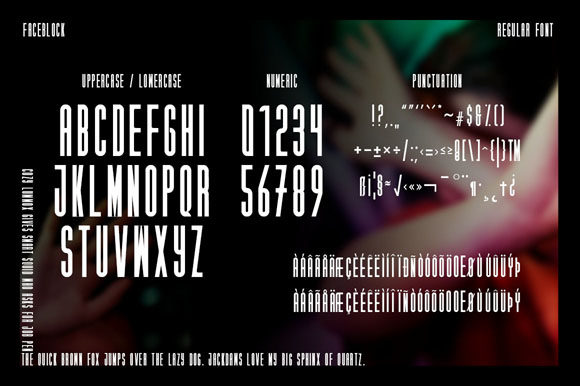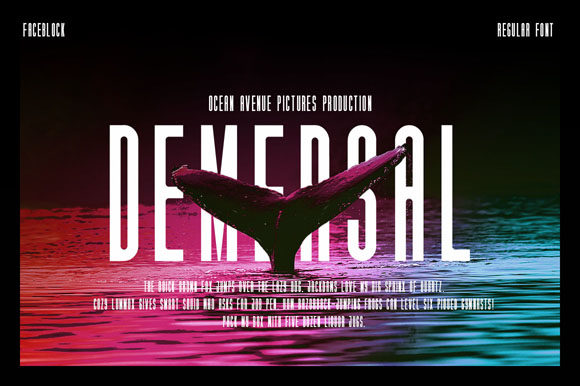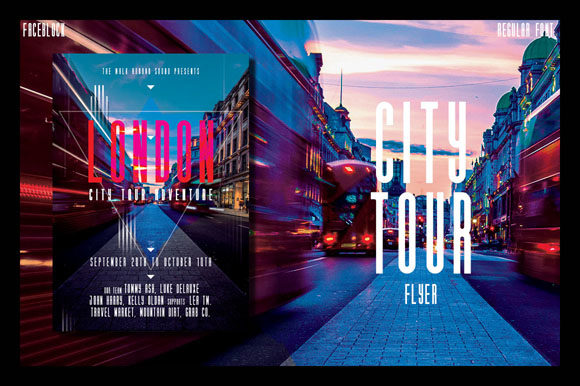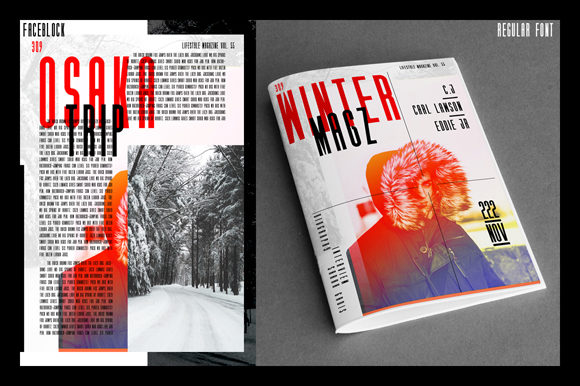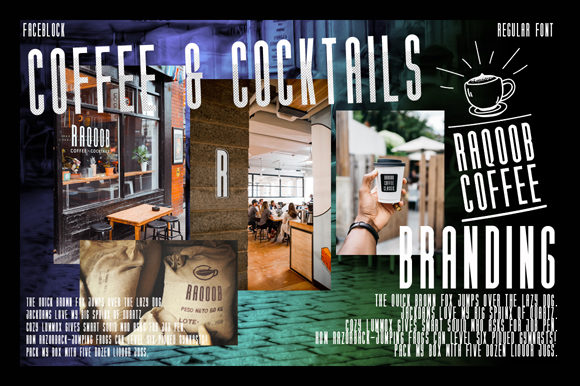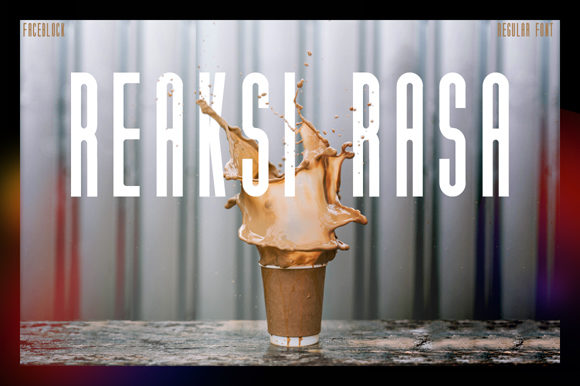
Introducing Faceblock Font: The Ultimate Modern Sans Serif for Your Designs
Are you tired of using the same old fonts for your designs? Look no further! Faceblock Font is here to revolutionize your creative projects with its sleek and modern sans serif style. This versatile font is perfect for designers and crafters who want to add a smart touch to their logos, magazines, branding, and more!
What is Faceblock Font?
Faceblock Font is a contemporary sans serif font designed to make a statement. Its clean lines, precise curves, and geometric shapes create a visually appealing aesthetic that’s perfect for a wide range of design applications. Whether you’re working on a logo, brochure, or website, Faceblock Font is sure to elevate your design to the next level.
Key Features of Faceblock Font
- Modern sans serif design: Faceblock Font boasts a fresh and modern design that’s perfect for designs that require a clean and sophisticated look.
- Versatile and flexible: Use Faceblock Font for a variety of design projects, from logos and branding to magazines and websites.
- Easy to read: The font’s clear and precise design ensures that your text is easy to read, even at small sizes.
- Scalable: Faceblock Font is designed to look great at any size, from large headlines to small body text.
Why Choose Faceblock Font?
With so many fonts available, why choose Faceblock Font for your designs? Here are just a few reasons:
- Unique and distinctive: Faceblock Font has a unique and distinctive style that will set your designs apart from the crowd.
- Professional and sophisticated: The font’s modern sans serif design gives your designs a professional and sophisticated look that’s perfect for businesses and brands.
- Easy to pair with other fonts: Faceblock Font pairs well with a wide range of other fonts, making it easy to create harmonious and visually appealing typography.
How to Use Faceblock Font in Your Designs
Faceblock Font is incredibly versatile and can be used in a variety of design applications. Here are a few ideas to get you started:
- Logos and branding: Use Faceblock Font to create a modern and sophisticated logo that’s perfect for businesses and brands.
- Magazines and publications: Faceblock Font is perfect for magazine and publication designs, where its clear and precise design ensures that text is easy to read.
- Websites and digital design: Use Faceblock Font to create a modern and responsive website that’s perfect for businesses and brands.
Tips and Tricks for Getting the Most Out of Faceblock Font
Here are a few tips and tricks to help you get the most out of Faceblock Font:
- Experiment with different sizes and colors: Faceblock Font looks great at a wide range of sizes and colors, so don’t be afraid to experiment and find the perfect combination for your design.
- Pair with other fonts: Faceblock Font pairs well with a wide range of other fonts, so try pairing it with different fonts to create interesting and harmonious typography.
- Use it consistently: For maximum impact, use Faceblock Font consistently throughout your design to create a cohesive and visually appealing look.
In conclusion, Faceblock Font is a modern sans serif font that’s perfect for designers and crafters who want to add a smart touch to their designs. With its clean lines, precise curves, and geometric shapes, Faceblock Font is versatile, flexible, and easy to read. Whether you’re working on a logo, magazine, or website, Faceblock Font is sure to elevate your design to the next level. So why wait? Download Faceblock Font today and start creating stunning designs that will leave a lasting impression!